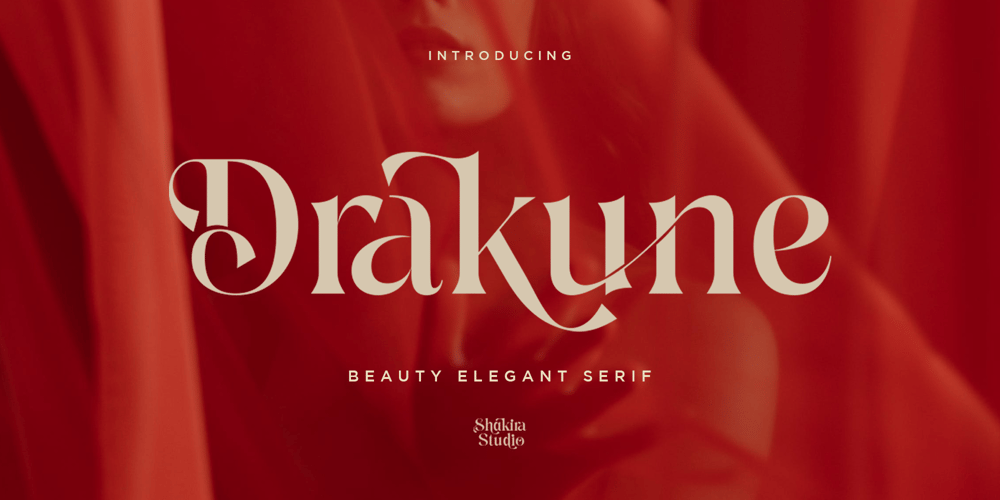
Drakune Font Family was designed by Idhham Cholid Rikzano Yahya and published by Shakira Studio. Drakune contains 2 styles and family package options. Introducing Drakune – Beauty Elegant Serifa font that epitomizes the essence of Beauty Elegant Serif. This font, meticulously crafted, offers a perfect blend of timeless beauty and contemporary sophistication. Drakune transforms your designs with its graceful serifs and intricate details, providing a touch of refined elegance that is currently in high demand. Explore the versatility of Drakune through its diverse alternates and ligatures, each contributing to a stylish and distinctive typographic experience. Elevate your creative projects with the allure of Drakune, setting a new standard for Beauty Elegant Serif fonts in the current design landscape.Here’s what you get: Regular & Italic All Multilingual symbol Opentype features ( ligature, alternate ) Accessible in the Adobe Illustrator, Adobe Photoshop, Adobe InDesign, even work on Microsoft Word. PUA Encoded Characters – Fully accessible without additional design software. Multilingual character supports : (Afrikaans, Albanian, Catalan, Croatian, Czech, Danish, Dutch, English, Estonian, Finnish, French, German, Hungarian, Icelandic, Italian, Lithuanian, Maltese, Norwegian, Polish, Portuguese, Slovenian, Spanish, Swedish, Turkish, Zulu)Follow my shop for upcoming updates, and for more of my work,Thank you!